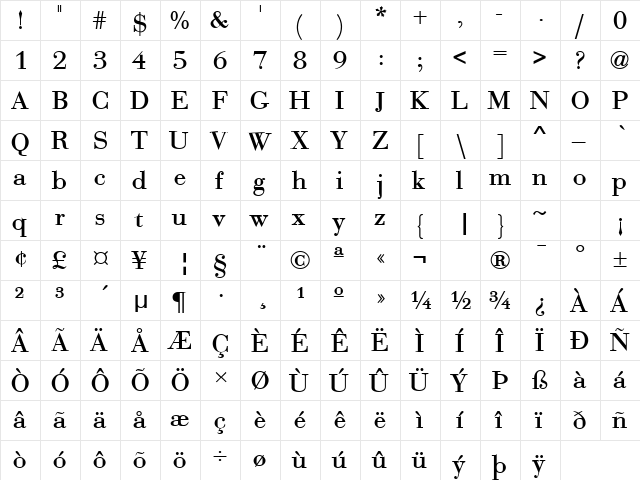
Sweez Bold
Design Context for Sweez Typeface
Sweez offers clean, dependable letterforms without strong stylistic allegiance, making it a practical choice for designers who need flexibility. The heavy weight commands attention and anchors typographic hierarchies.